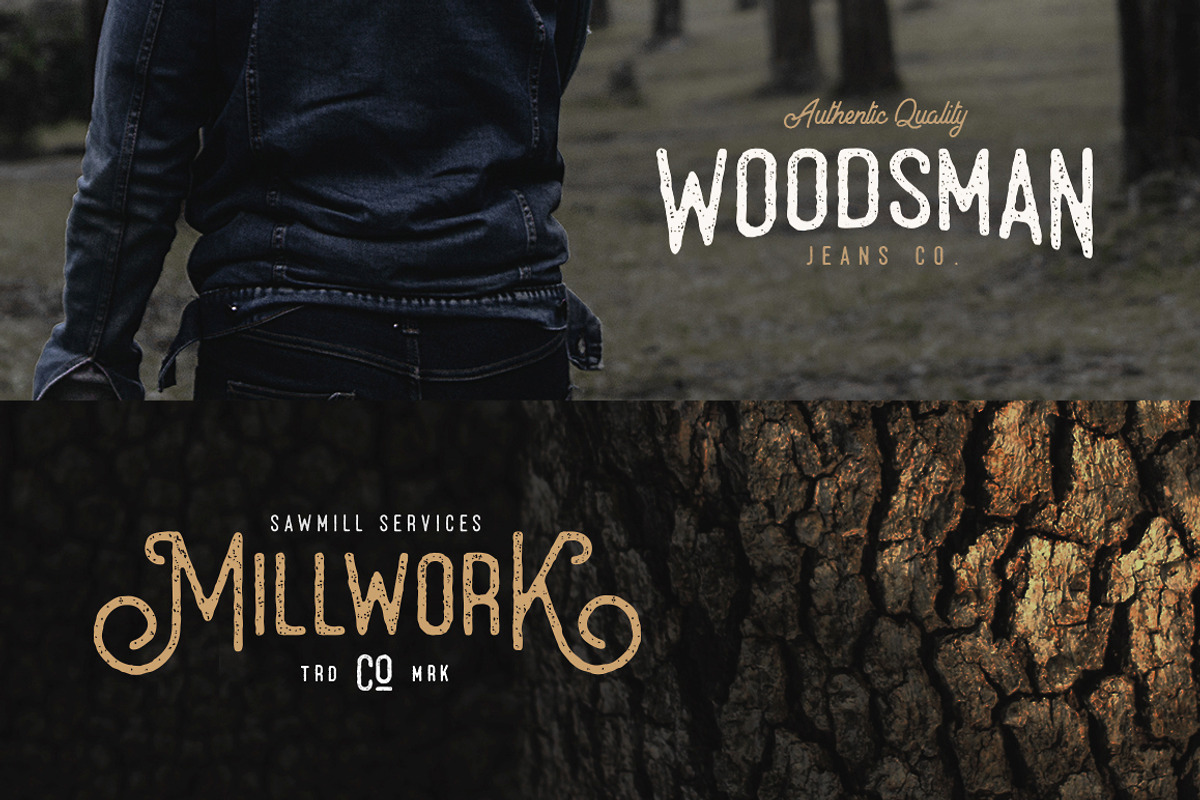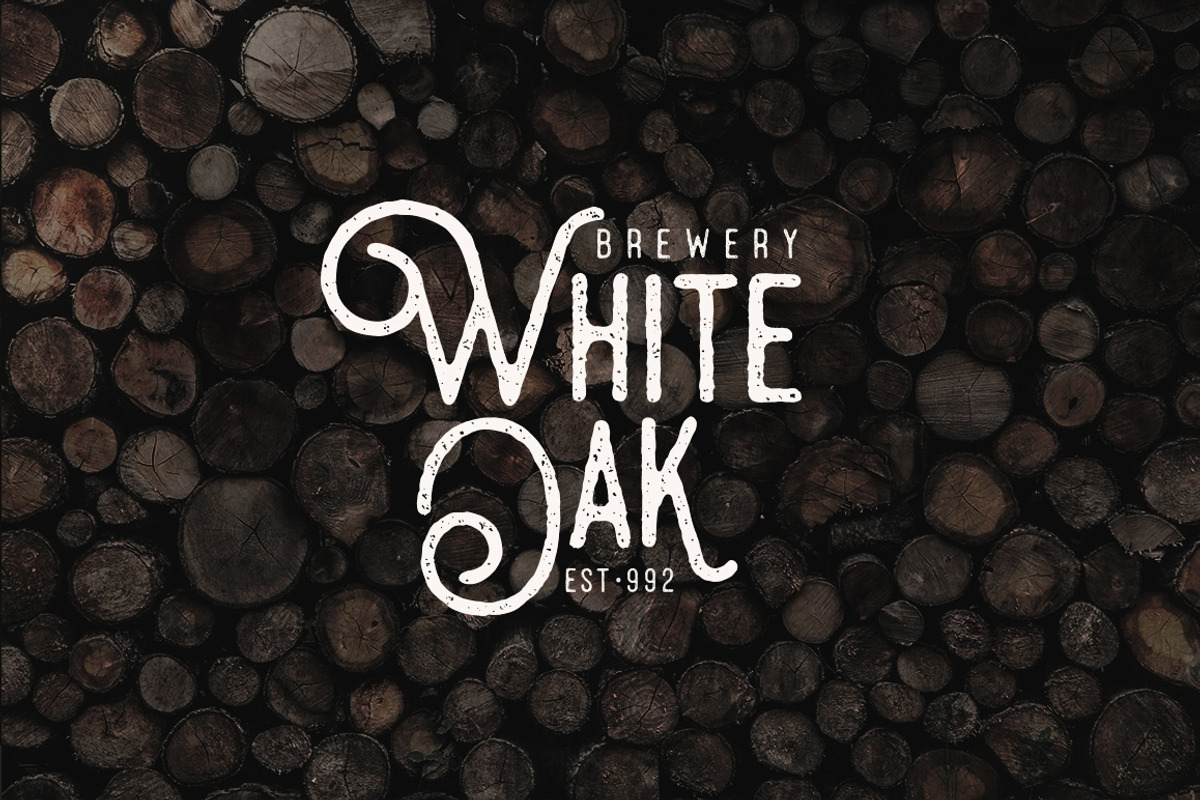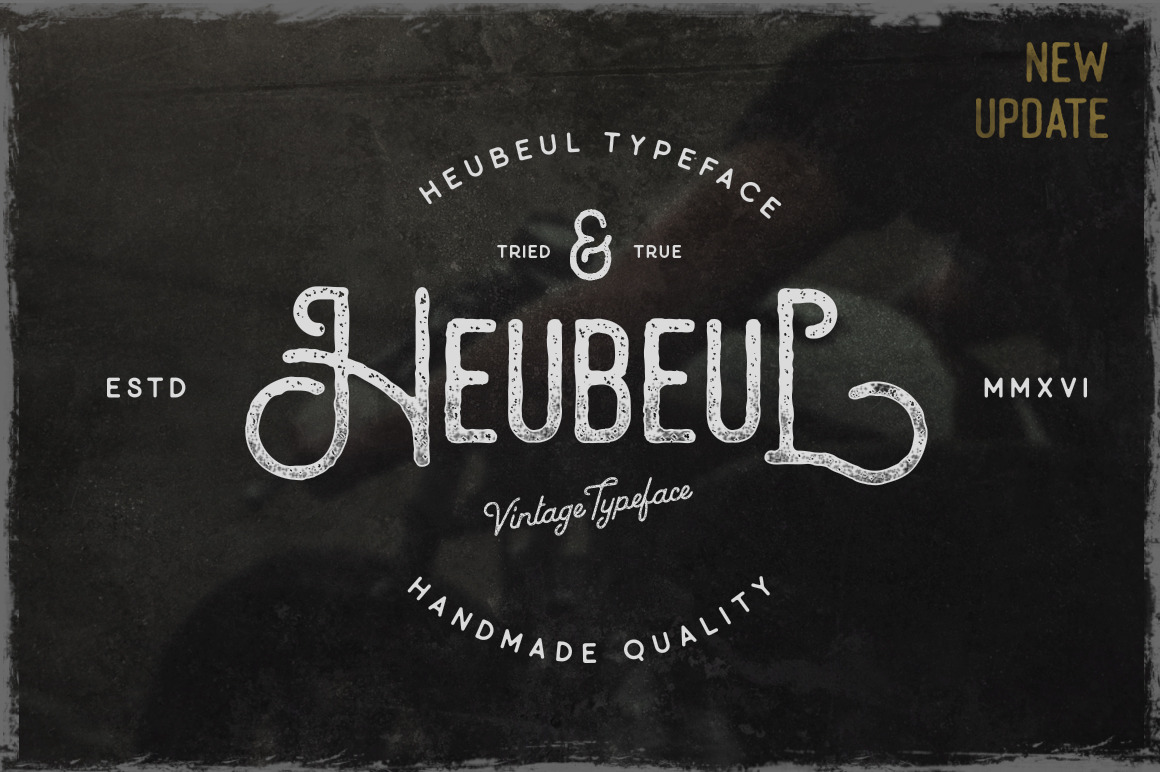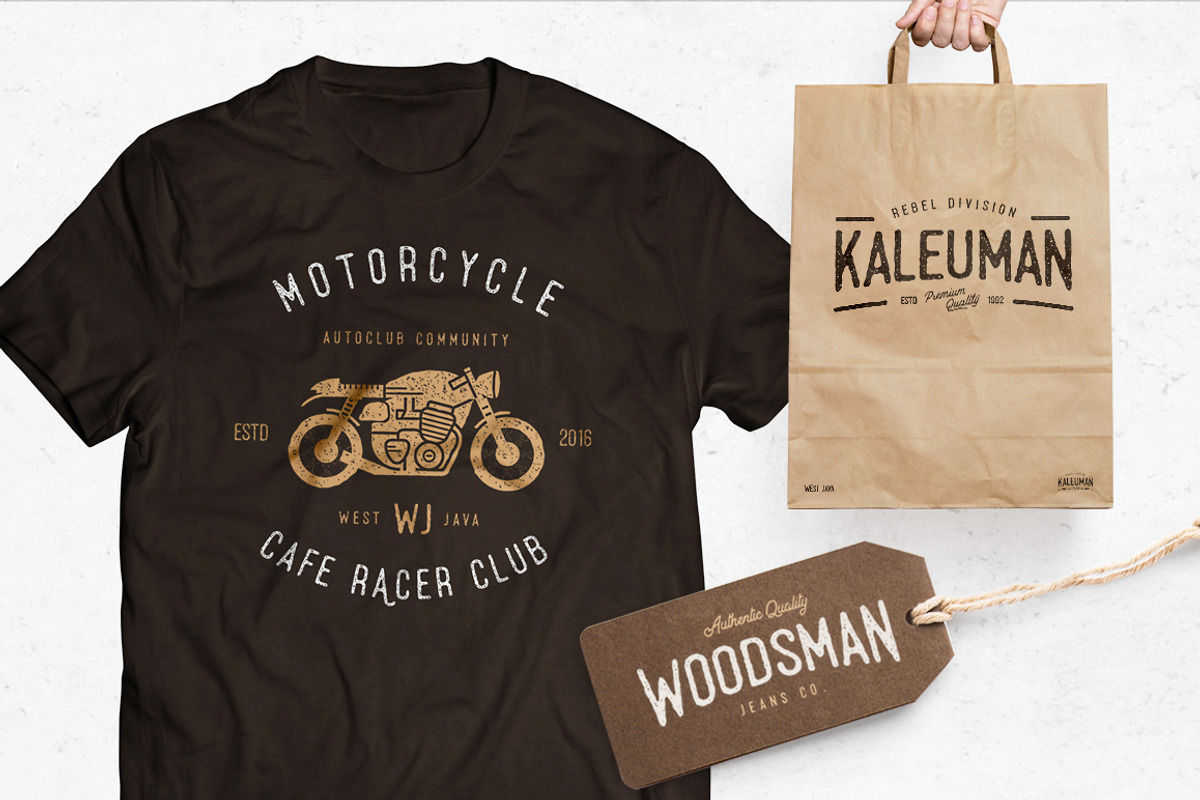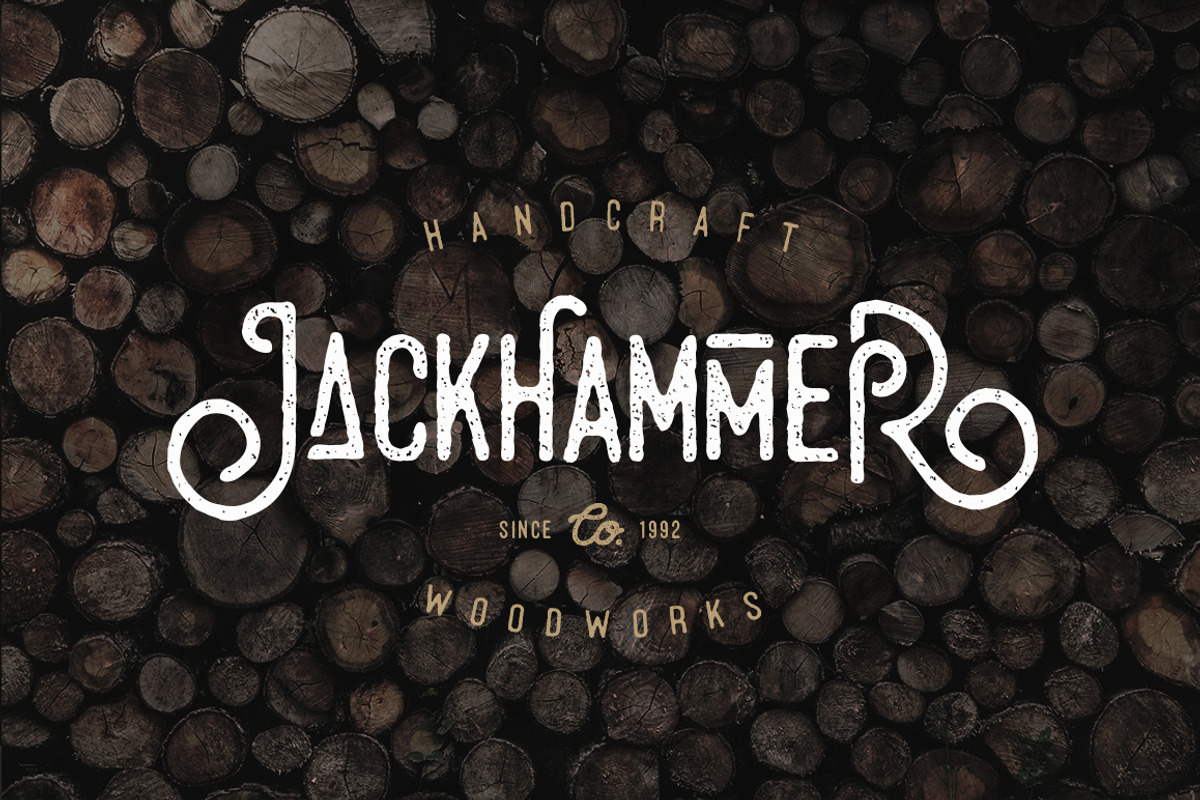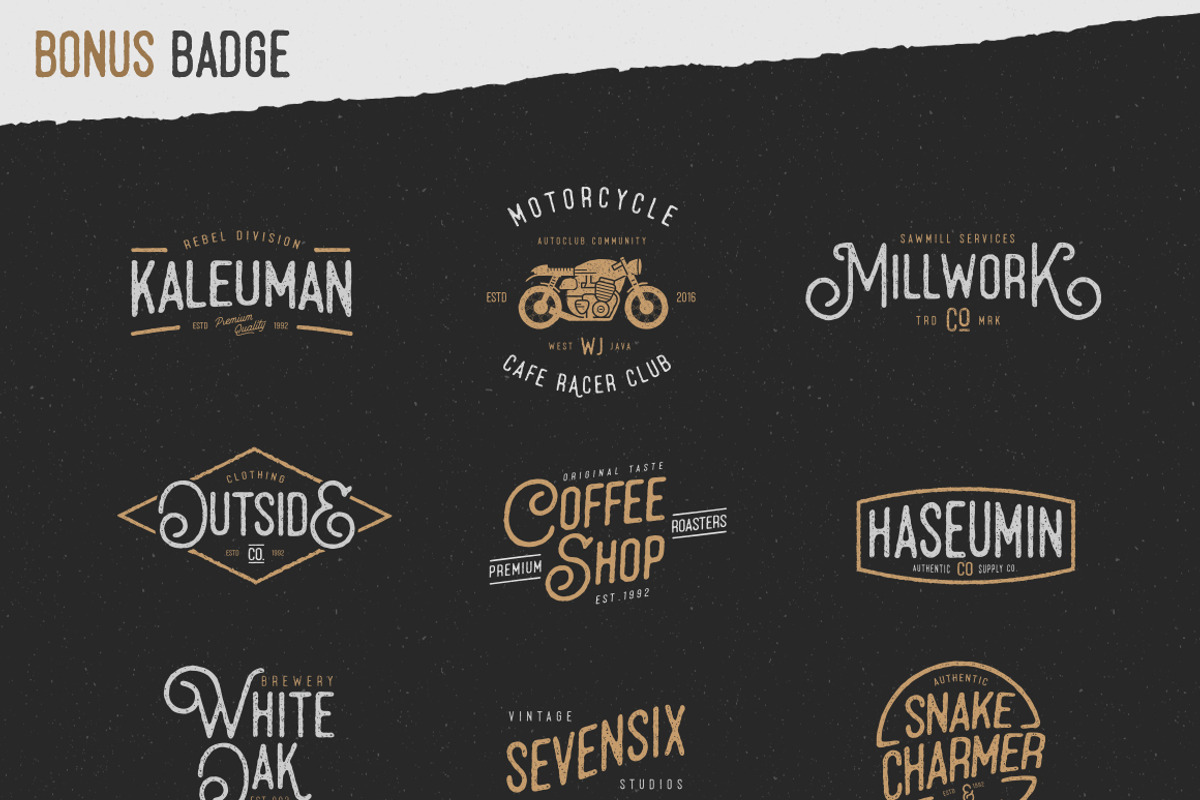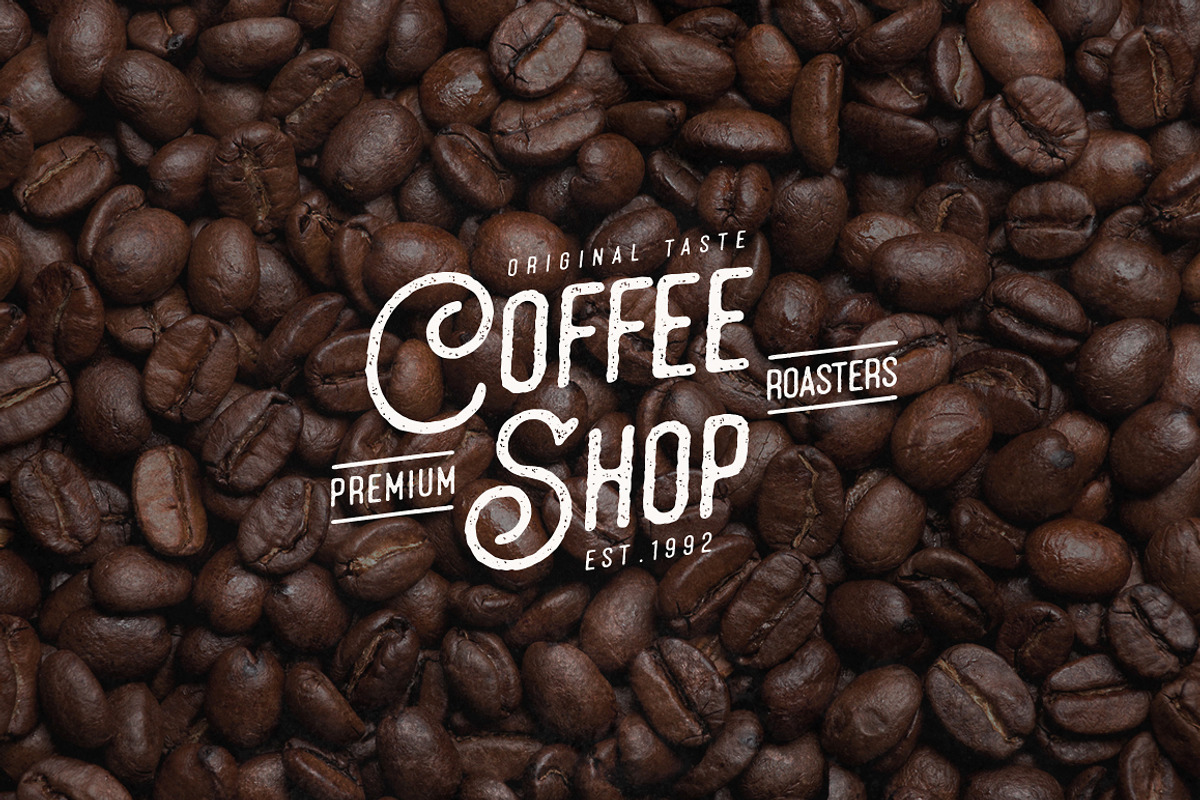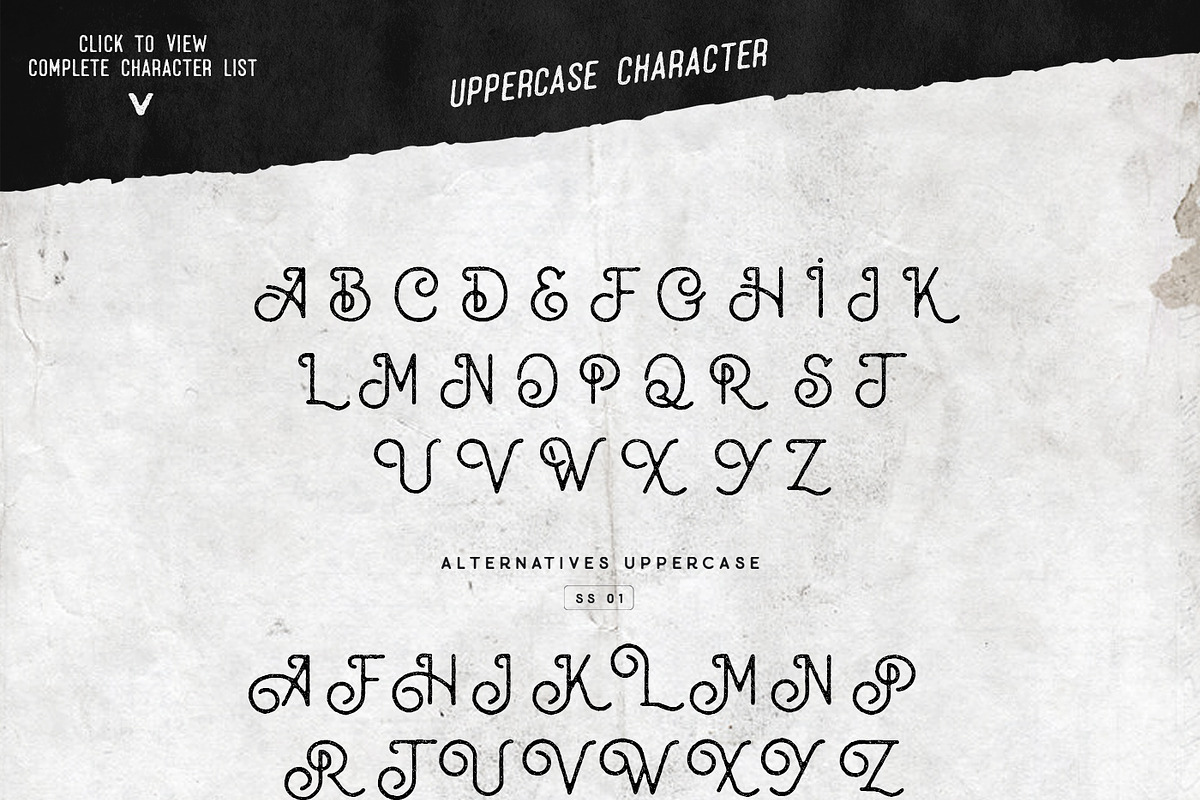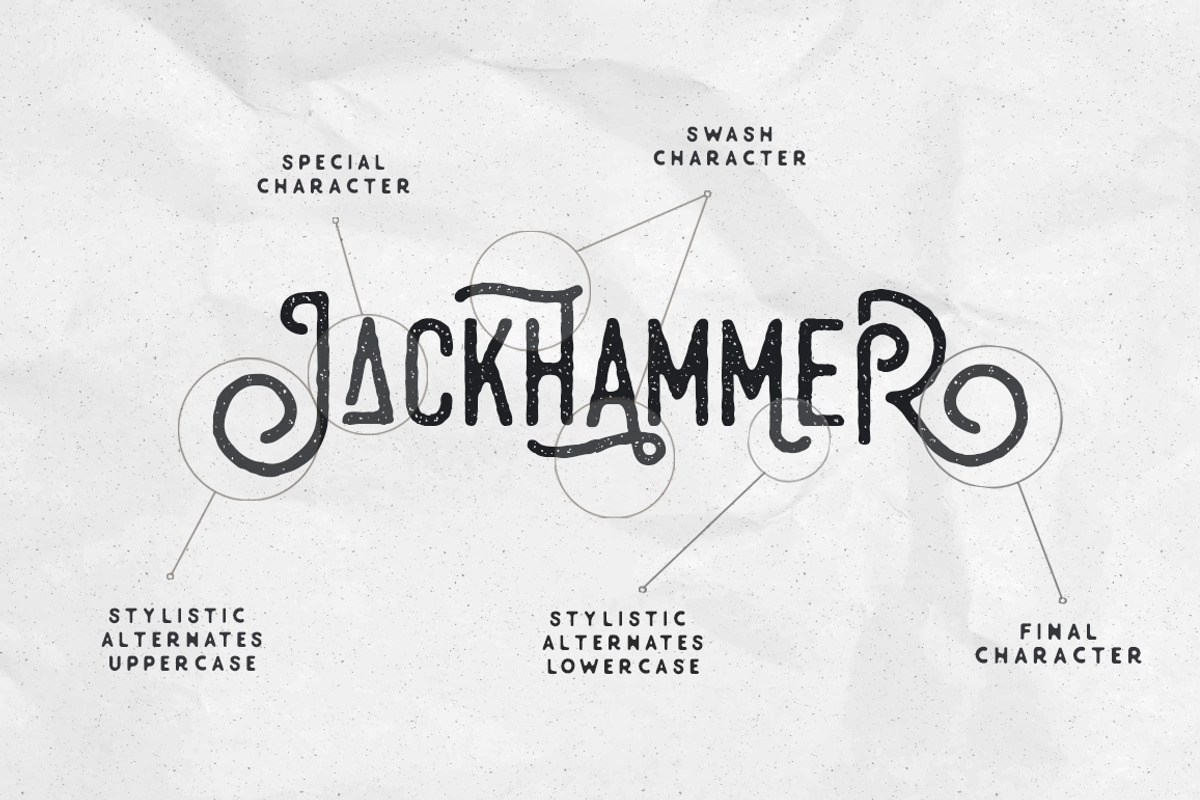
Heubeul Vintage Typeface (UPDATE)
UPDATE 14/05/2016 v 1.1
- Many alternatives uppercase and lowercase character added
- Start and Finishing Character
- More Variation Unique Lowercase Character
- Hebeul Rough Family
- Hebeul Vintage Italic
- Update International Language
Heubeul Vintage Typeface
Heubeul is a highly detailed handcrafted font inspired from hand-drawn lettering and vintage style. Suitable for digital lettering, logo, poster, t-shirt, nature photography and applicable for graphic design.
- Uppercase (Complete with Alternative Character)
- Lowercase (Complete with Alternative Character)
- Punctuation & Symbol
- Stylistic Alternatives
- International Language
- Special Character